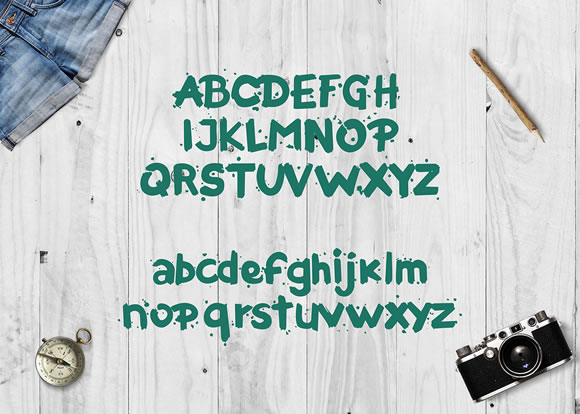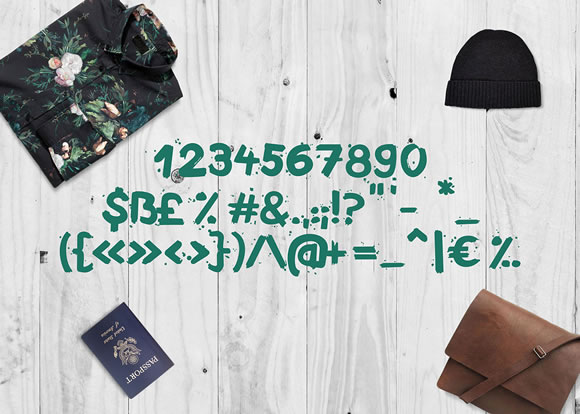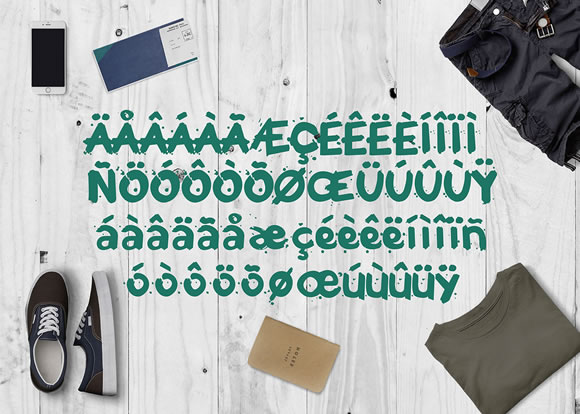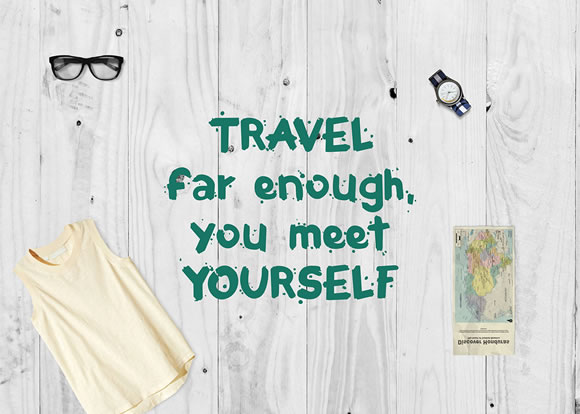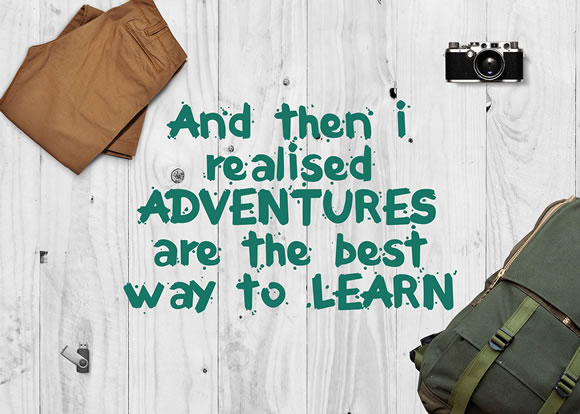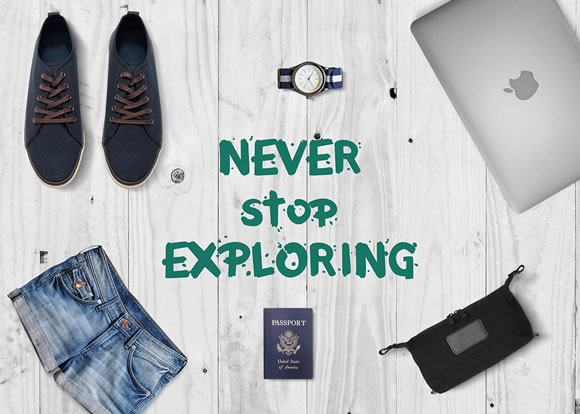
Genoise Font: A Handmade Brush Font with a Personal Touch
Are you tired of using the same old fonts in your designs? Look no further than Genoise, a unique handmade brush font created by talented designer Milena Gajovic. This beautiful font is covered with splatter, giving it a personal touch that’s sure to make your designs stand out.
What is Genoise Font?
Genoise is a carefully crafted font that mimics the look of hand-painted letters. With its splattered and irregular texture, this font adds a touch of whimsy and personality to any design. Whether you’re working on a logo, invitation, or social media graphic, Genoise is the perfect choice for designers and crafters looking to add a bit of handmade charm.
The Story Behind Genoise
Milena Gajovic, the creative mind behind Genoise, is a passionate designer with a love for typography. With a keen eye for detail and a passion for handmade crafts, Milena set out to create a font that would capture the essence of hand-painted letters. The result is Genoise, a beautiful and unique font that’s perfect for anyone looking to add a personal touch to their designs.
Key Features of Genoise Font
- Handmade with love: Genoise is a truly handmade font, crafted with care and attention to detail to ensure a unique and personal touch.
- Splattered texture: The font’s splattered texture gives it a playful and whimsical feel that’s perfect for designs that need a bit of personality.
- Brush font: Genoise is a brush font, which means it’s designed to mimic the look of hand-painted letters.
- Perfect for designs: Whether you’re working on a logo, invitation, or social media graphic, Genoise is the perfect choice for designers and crafters looking to add a bit of handmade charm.
Uses for Genoise Font
Genoise is a versatile font that can be used in a variety of designs, including:
- Logos and branding: Add a personal touch to your logo or branding with Genoise’s unique and handmade look.
- Invitations and stationery: Make your invitations and stationery stand out with Genoise’s playful and whimsical texture.
- Social media graphics: Add a bit of personality to your social media graphics with Genoise’s handmade charm.
- Packaging and labels: Use Genoise to add a personal touch to your packaging and labels.
Tips for Using Genoise Font
Here are a few tips for getting the most out of Genoise:
- Experiment with colors: Genoise looks great in a variety of colors, so don’t be afraid to experiment and find the perfect hue for your design.
- Play with textures: Genoise’s splattered texture is a key part of its charm, but you can also experiment with other textures to add depth and interest to your design.
- Use it sparingly: Genoise is a bold and eye-catching font, so use it sparingly to avoid overwhelming your design.
| Font Name | Genoise Font |
| Author | Milena Gajovic |